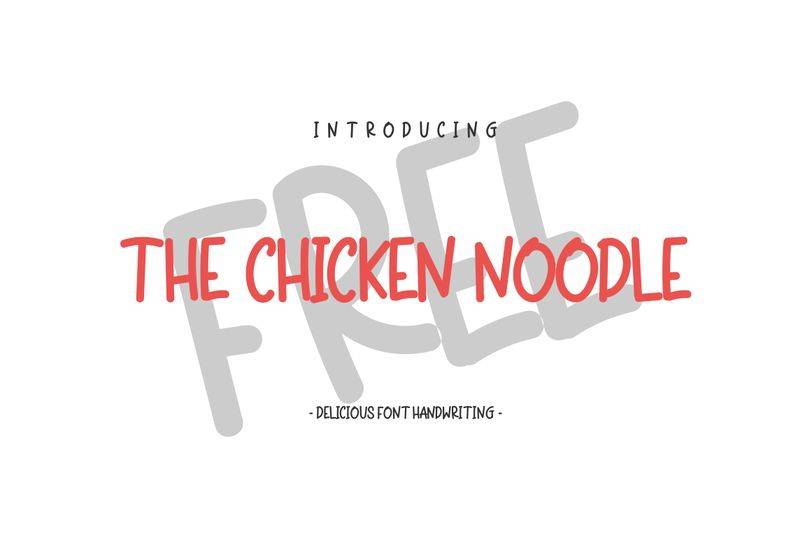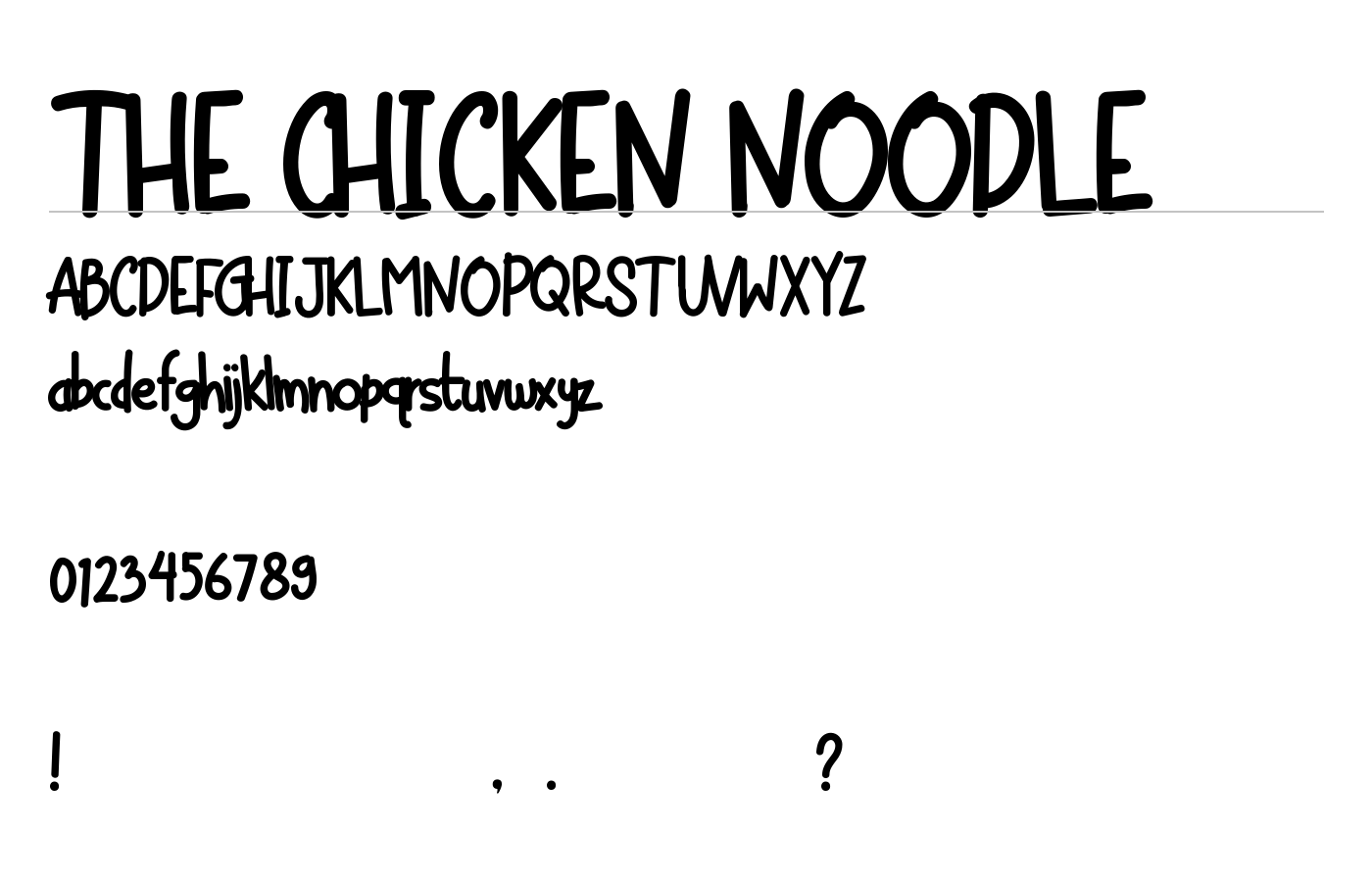
The Chicken Noodle Font is a playful and casual handwritten sans serif with a lively, irregular stroke that gives it a fun and approachable vibe. Its narrow letterforms and energetic character shapes make it ideal for informal designs, children’s products, or creative branding that wants to feel friendly and personal. This font works well for headlines, packaging, and any project needing a lighthearted, hand-drawn touch.
The Chicken Noodle Font
About The Chicken Noodle Font
| Font family | The Chicken Noodle Font |
| Designer | Holis Majid |